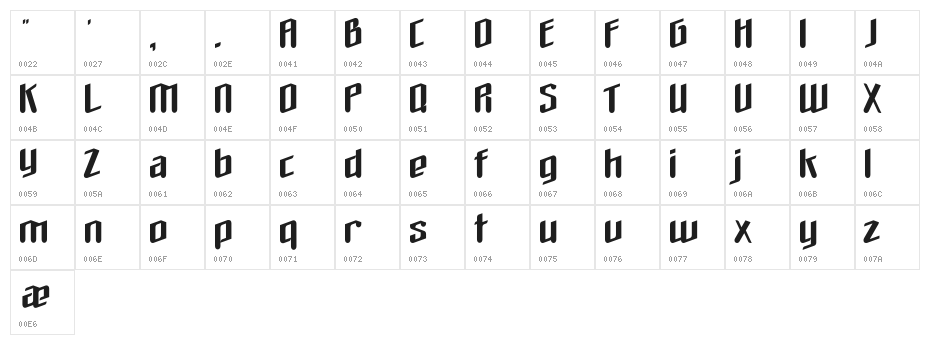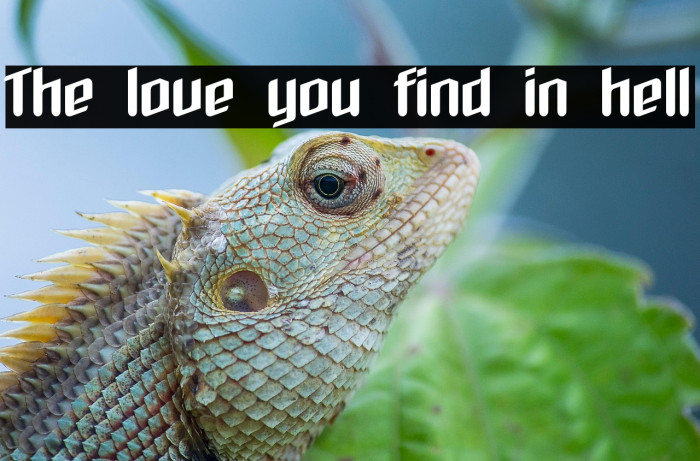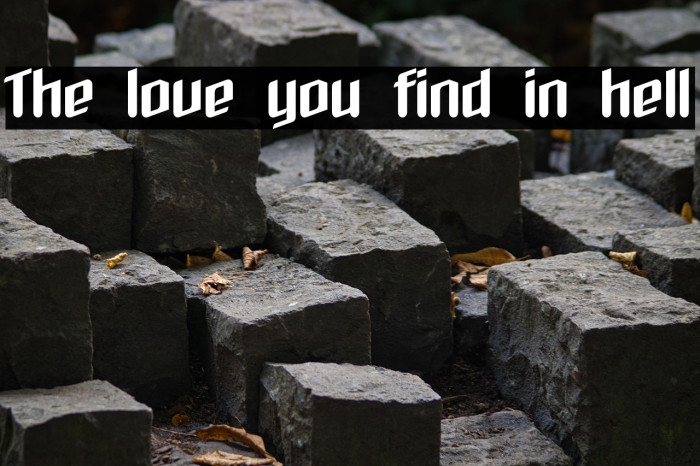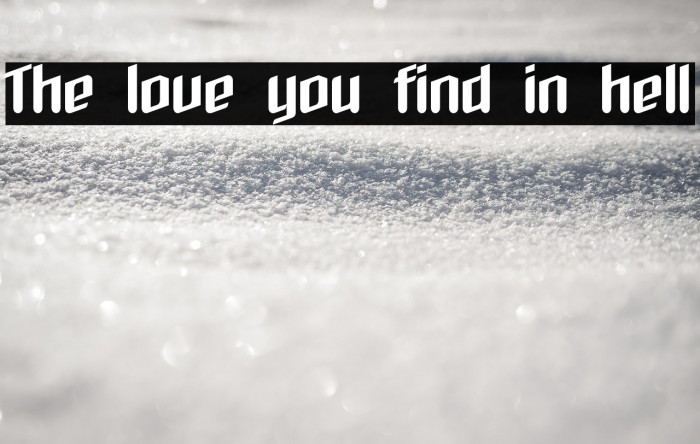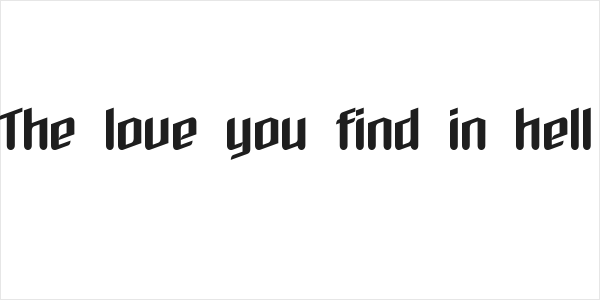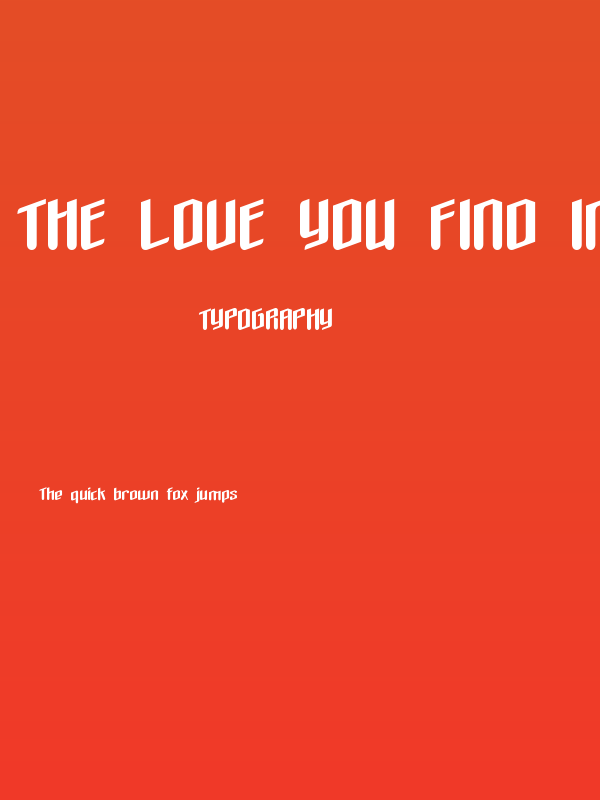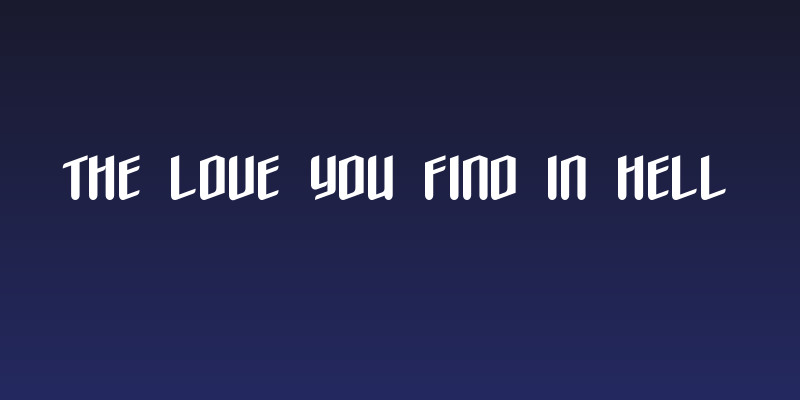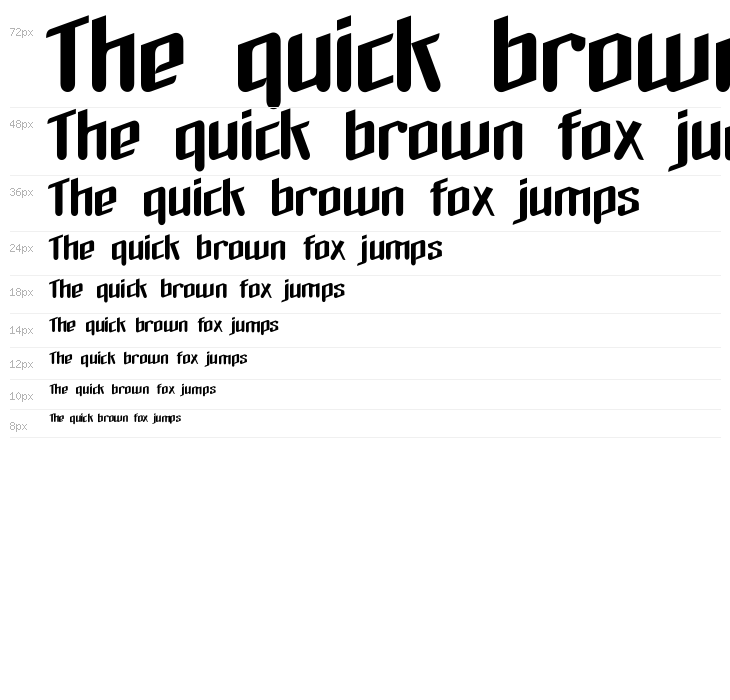
The love you find in hell Font
The love you find in hell Description
This font features a bold and angular design, characterized by sharp edges and a modern, geometric style. The uppercase letters are tall and narrow, with a consistent stroke width that gives them a strong, impactful presence. The lowercase letters maintain the angular theme, offering a unique twist on traditional letterforms. The numerals and special characters are designed to match the overall aesthetic, ensuring a cohesive look across all text. This font's distinct style makes it suitable for projects that require a bold and modern appearance.